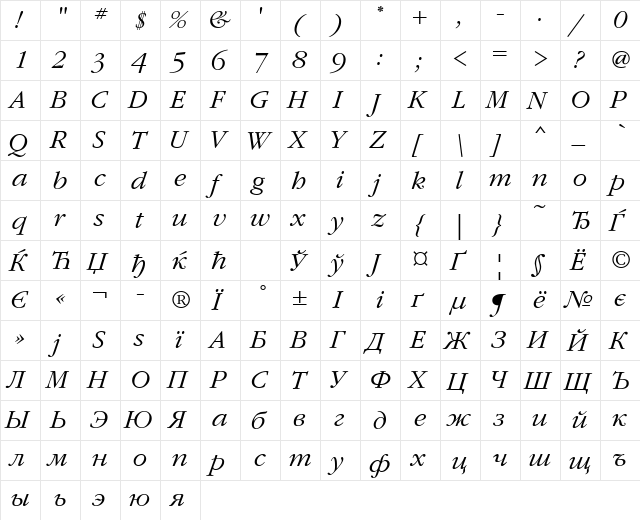
GaramondCTT Italic Font Preview
GaramondCTT Italic
GaramondCTT Italic Font Details
Design Context for GaramondCTT Typeface
GaramondCTT takes a measured approach to typography — its balanced proportions and neutral character make it a reliable workhorse for both digital and print work. Its italic angle brings a sense of urgency and motion to the letterforms.